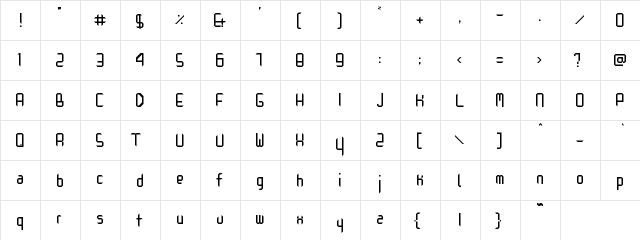
vely Regular
Design Context for vely Typeface
vely is a composed and adaptable typeface that performs quietly and consistently across a wide range of design contexts.